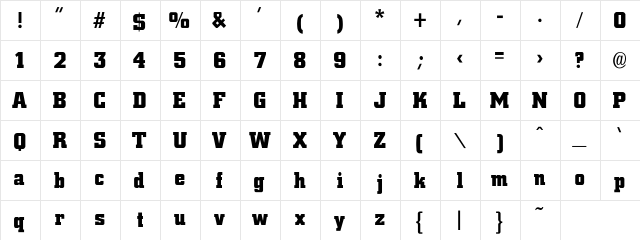
Burg-Bold Regular
Design Context for Burg-Bold Typeface
Burg-Bold takes a measured approach to typography — its balanced proportions and neutral character make it a reliable workhorse for both digital and print work. The heavy weight commands attention and anchors typographic hierarchies.
Pro Tip: Use Burg-Bold in both headline and body roles to test its range before committing to a single application.